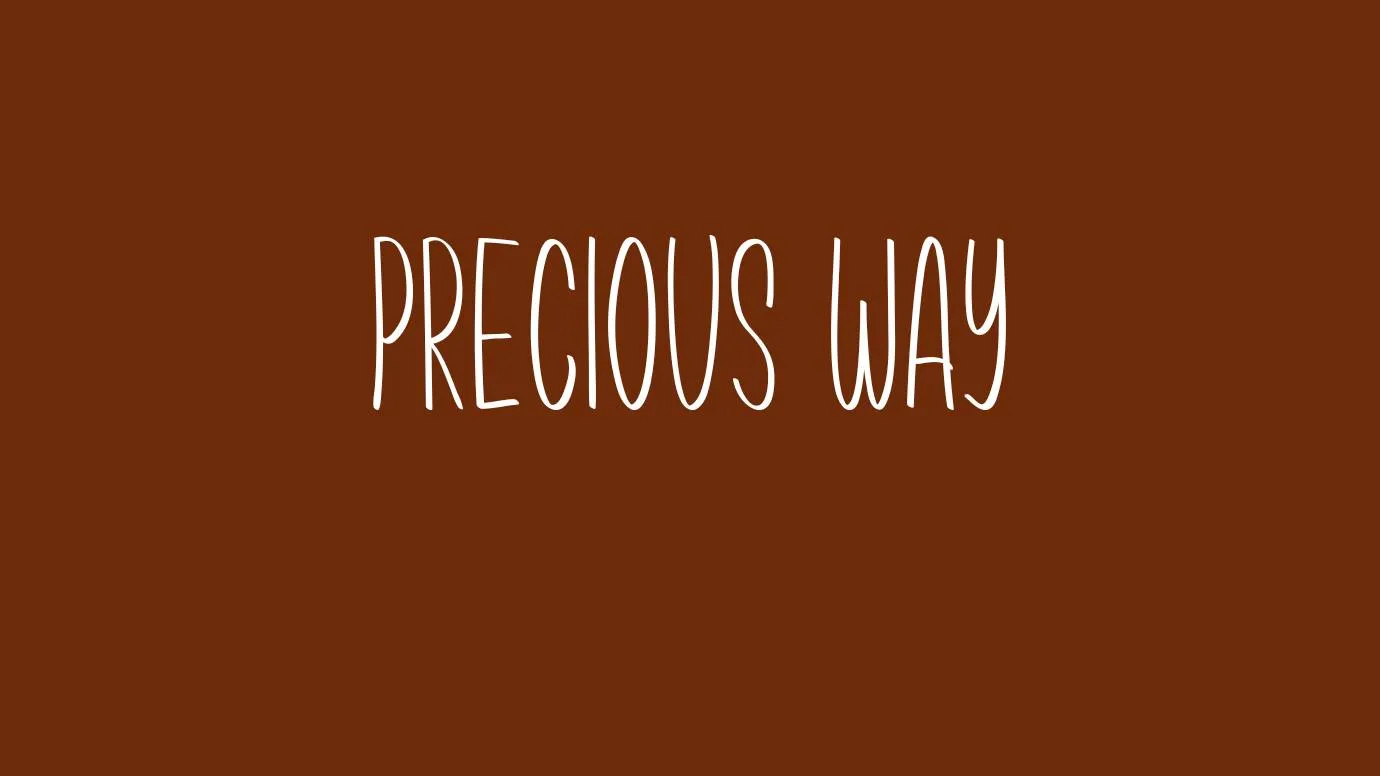
Precious Way Font Family is a handwritten typeface that was designed by Md Shohail Bhuian and manufactured by Seemly Fonts. This font looks amazing in personal and commercial projects by using this font.
| Name | Precious Way Font |
| Designer | Hanoded |
| Type | Script |